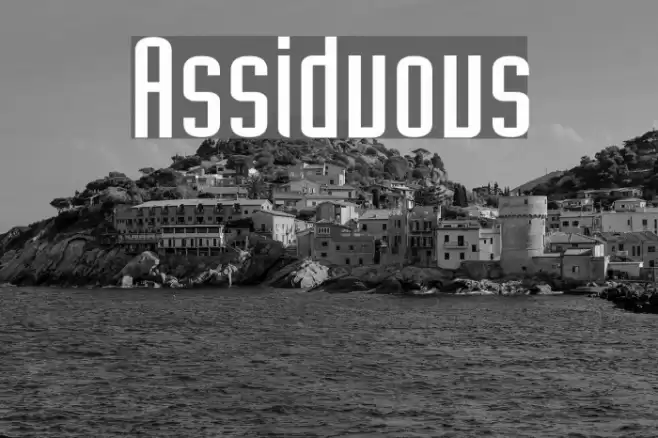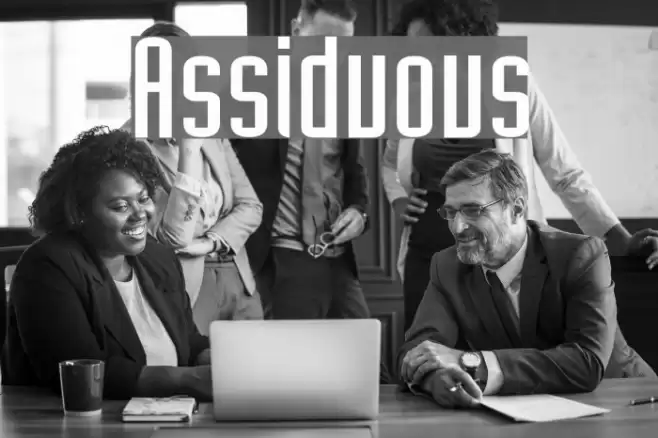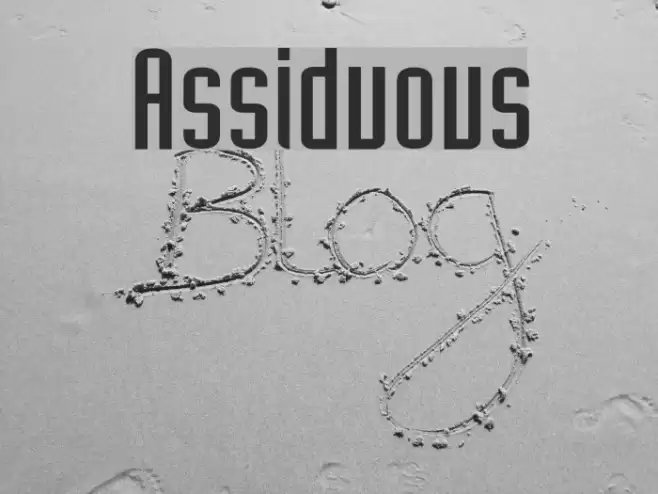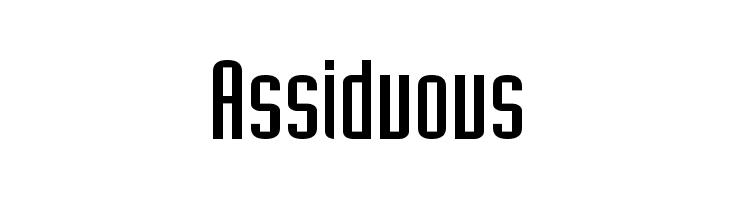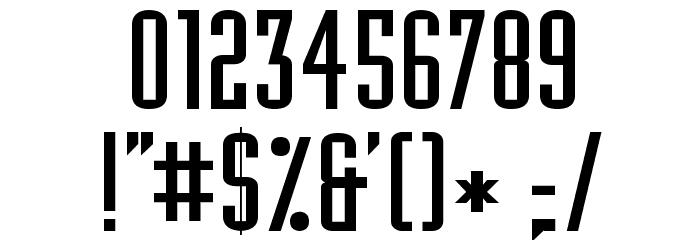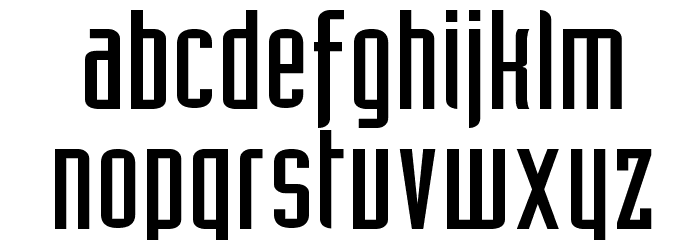
Assiduous Font
Assiduous Description
This font features a bold and condensed style, characterized by tall, narrow letters with a strong vertical emphasis. The uppercase and lowercase letters maintain a consistent height, giving a uniform appearance. The strokes are thick and consistent, with minimal contrast, creating a modern and assertive look. The numerals and special characters follow the same design principles, ensuring a cohesive appearance across all glyphs. Its geometric structure and clean lines make it suitable for impactful and attention-grabbing designs.
A bold, condensed font with a modern, geometric style from Uncategorized fonts.
- Proposed Projects: Ideal for posters, headlines, branding, and logo design where a strong visual impact is desired.
- Character Spacing: Tight